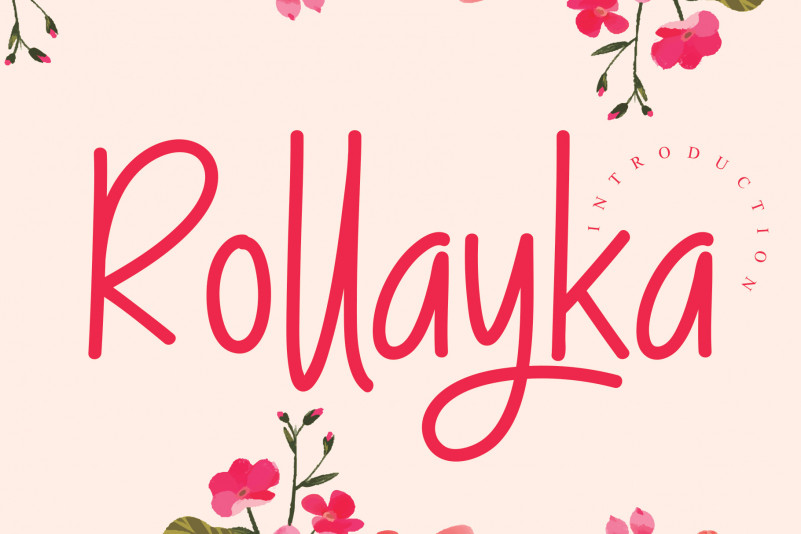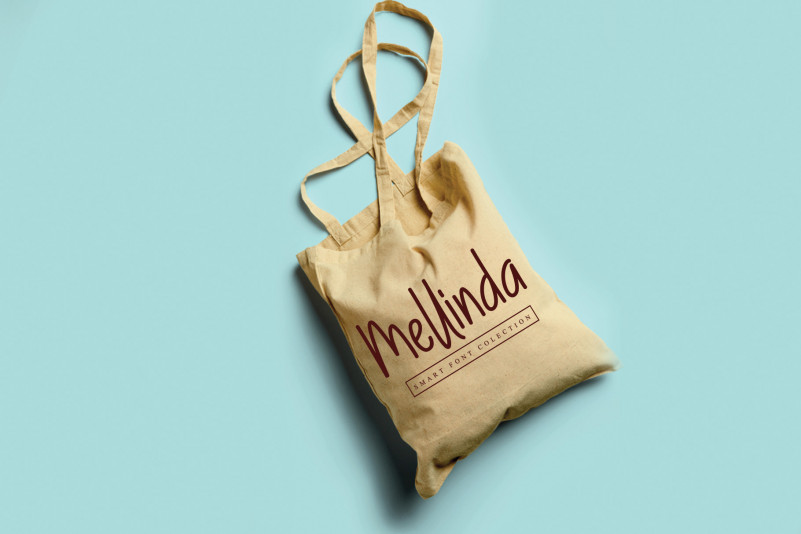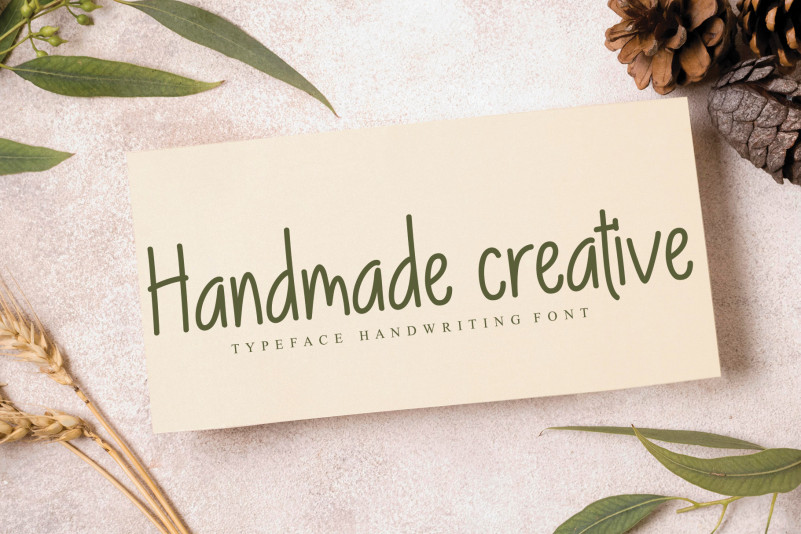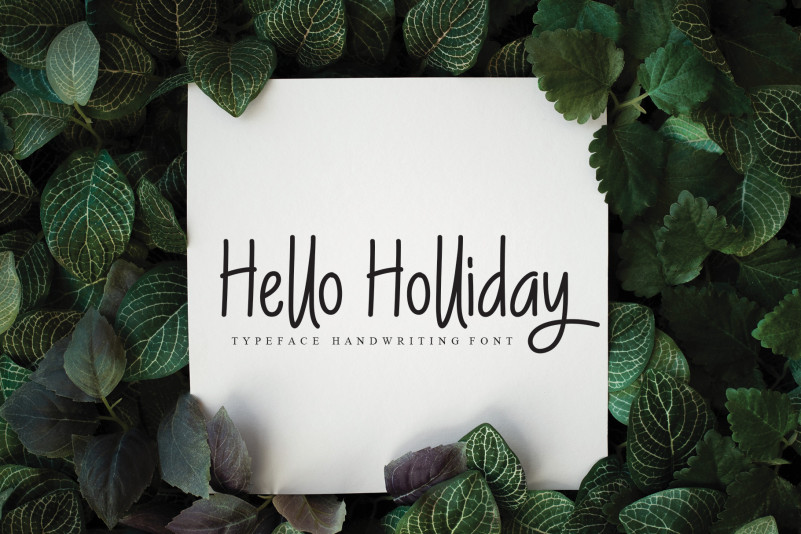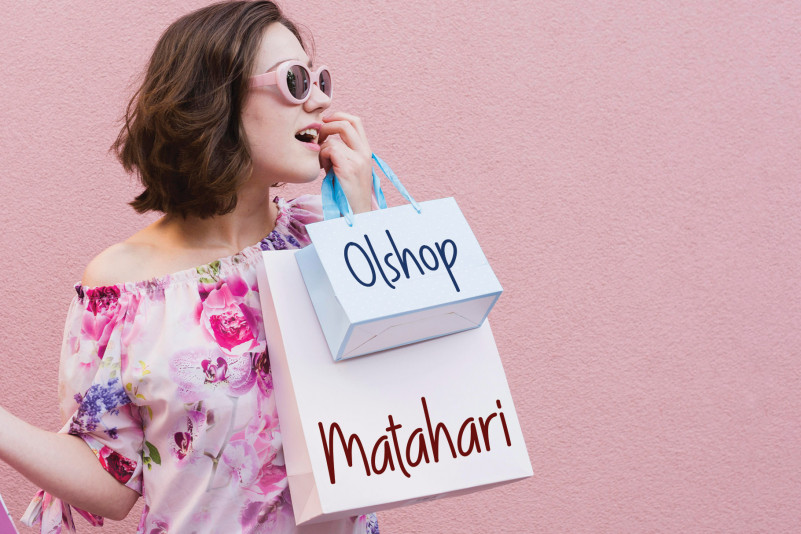
Rollayka Script Font
Rollayka Script Font is a tall and friendly handwritten font. Fall in love with its incredibly versatile style and use it to create spectacular designs!